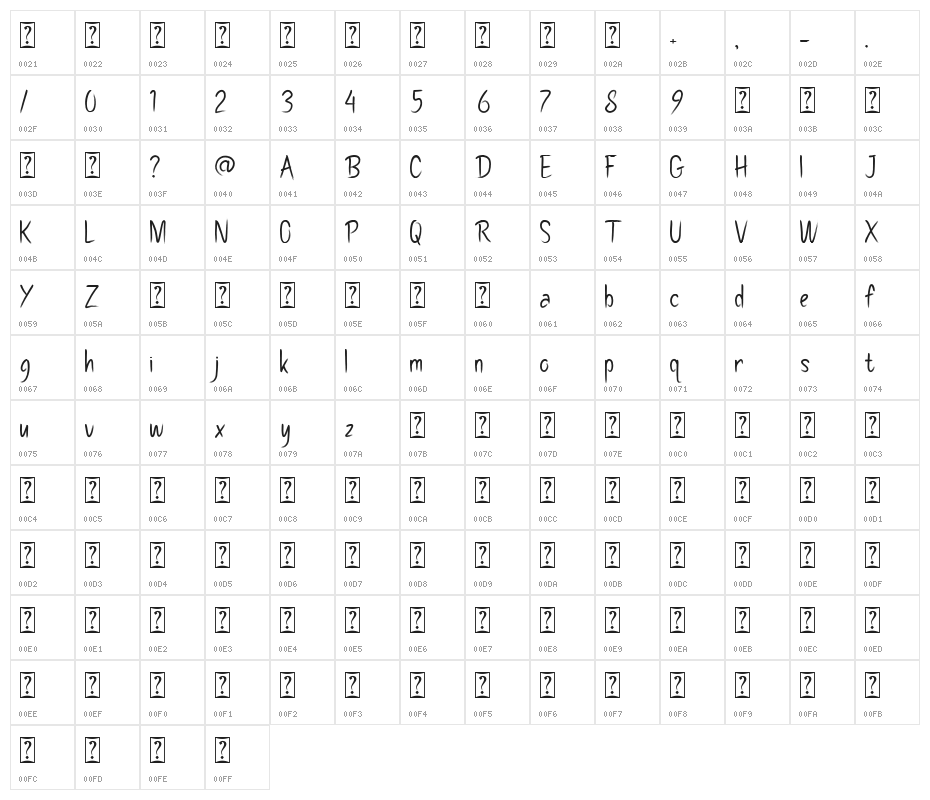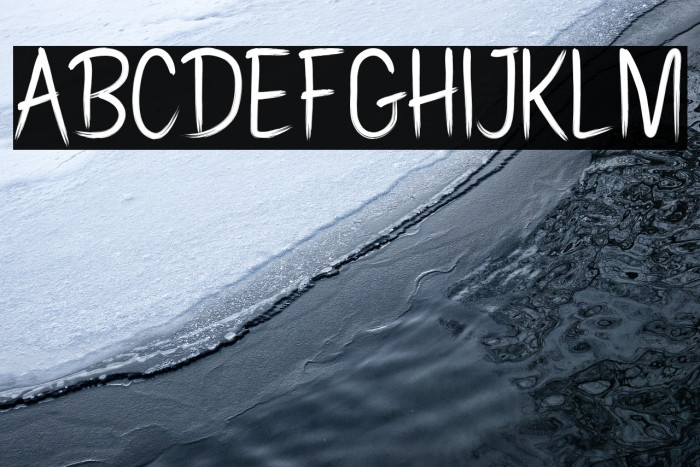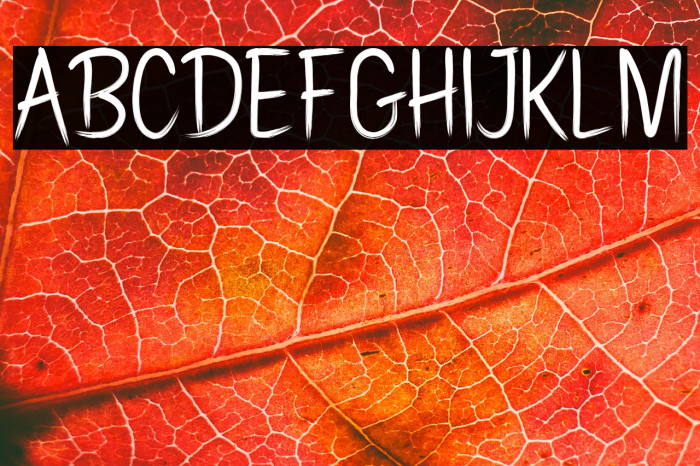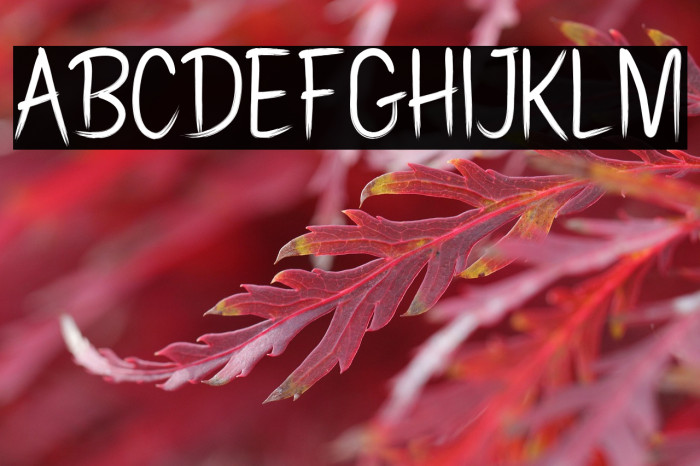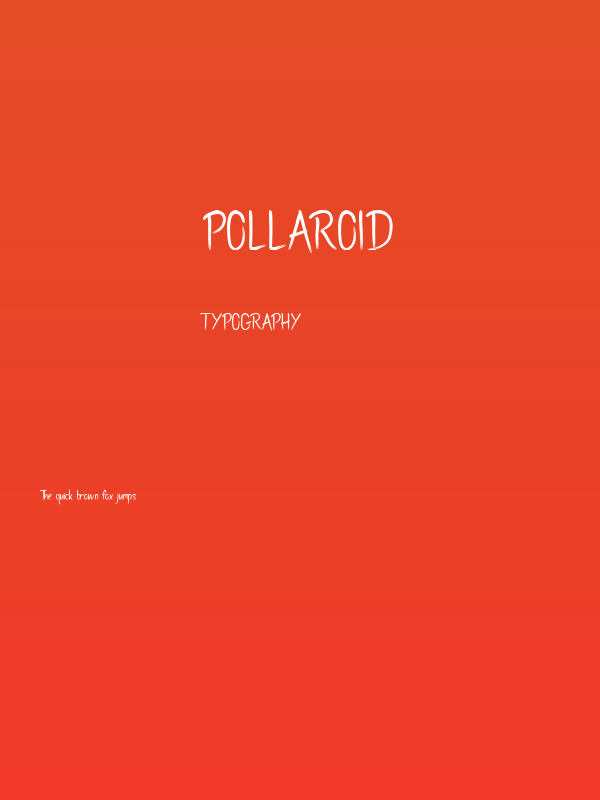
Pollaroid Font
Pollaroid Description
This font features a dynamic and expressive style, characterized by its brush-like strokes and slightly irregular forms. The uppercase letters are bold and commanding, with a sense of movement that suggests a hand-drawn quality. The lowercase letters maintain this fluidity, offering a cohesive look that is both artistic and approachable. Numbers are consistent with the overall style, providing a playful yet legible appearance. The special characters are uniquely stylized, adding to the font's creative flair. This font is ideal for projects that require a personal touch, such as invitations, posters, or branding materials that aim to convey creativity and individuality.
| Proposed Projects | Ideal for creative projects like invitations, posters, and branding materials. |